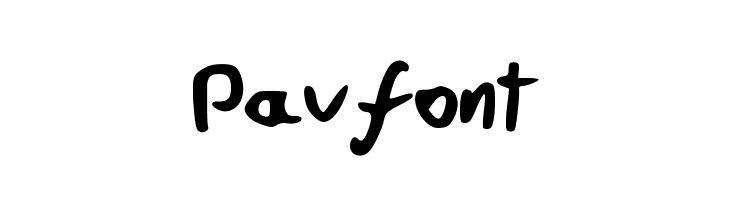
A playful, hand-drawn font with a casual and whimsical style.
A playful, handwritten-style font with a casual and friendly appearance.
A hand-drawn, rustic font with elongated, irregular strokes and a vintage feel.
A playful, handwritten font with bold, varied strokes and a casual, dynamic style.
A playful handwritten font with bold, dynamic strokes and a casual style.
A playful, casual handwritten font with flowing strokes and a personal touch.